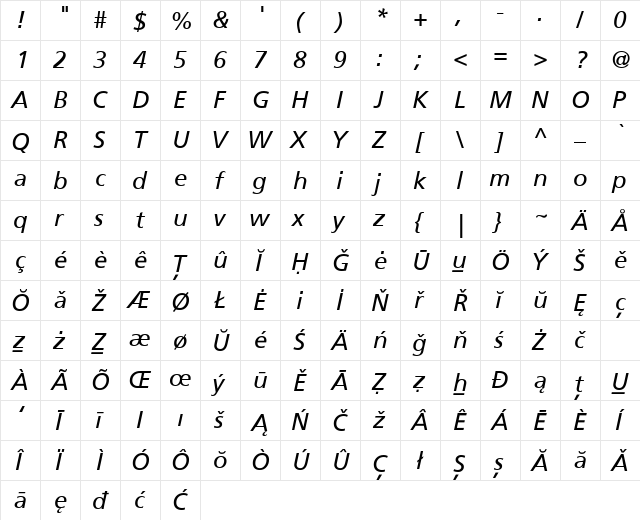
Frutiger SBIN It v.1 Italic
Design Context for Frutiger SBIN It v.1 Typeface
Frutiger SBIN It v.1 takes a measured approach to typography — its balanced proportions and neutral character make it a reliable workhorse for both digital and print work. Its italic angle brings a sense of urgency and motion to the letterforms.
Pro Tip: Use Frutiger SBIN It v.1 for emphasis, pull quotes, and subheadings where its slanted energy can add rhythm to the layout.